Fancy Letter Z Font
Every fancy font style rendered for just the letter Z, so you can compare them side by side before picking one for an initial, a logo, or a single-character tag.
The Letter Z in Every Style
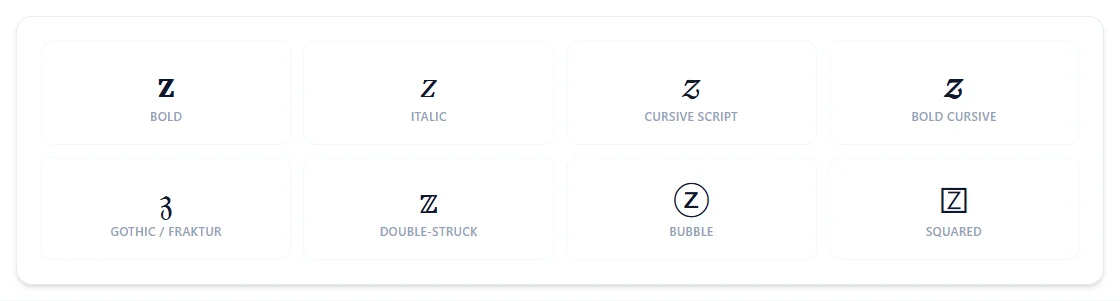
Z's Double-Struck form (ℤ) is the standard math symbol for the integers, and its Fraktur form (ℨ) is another borrowed character — both reused from older parts of Unicode instead of the newer Mathematical Alphanumeric block.
Why does double-struck Z look like a math symbol?
Because it is one — ℤ is the standard notation for the integers, and Unicode's double-struck Z reuses that exact character.